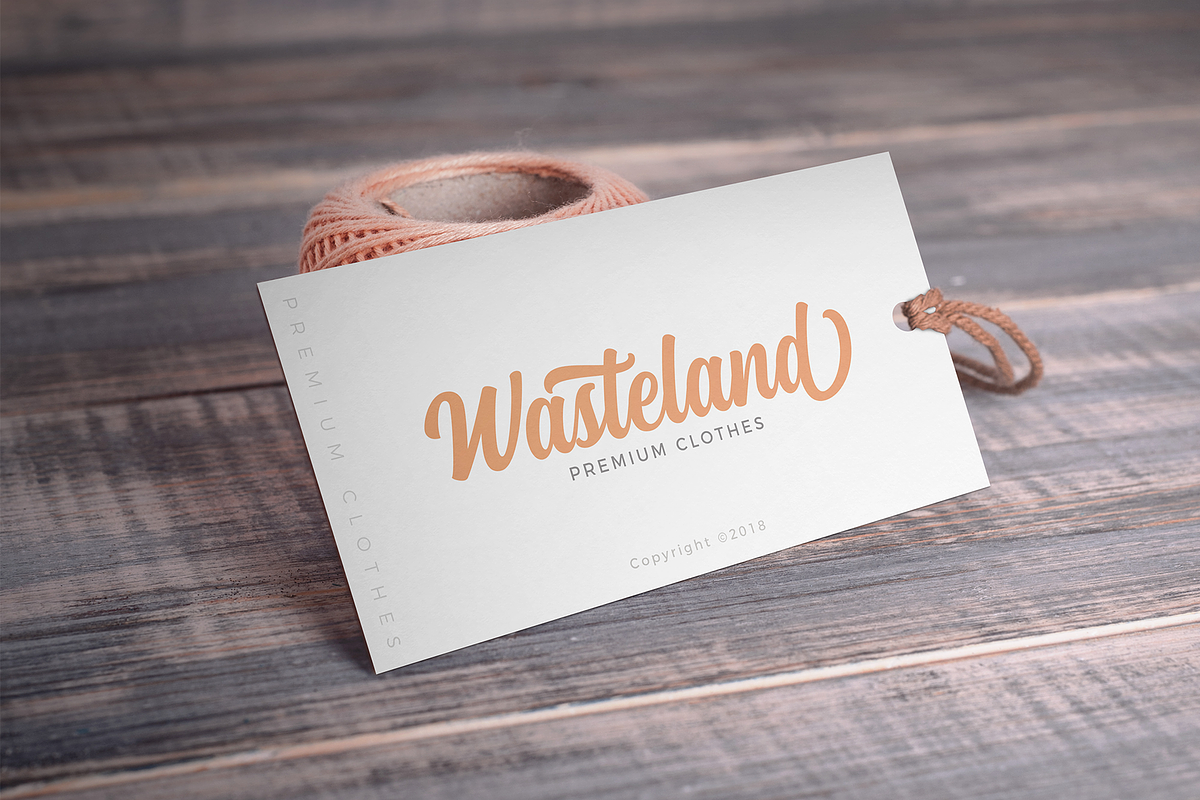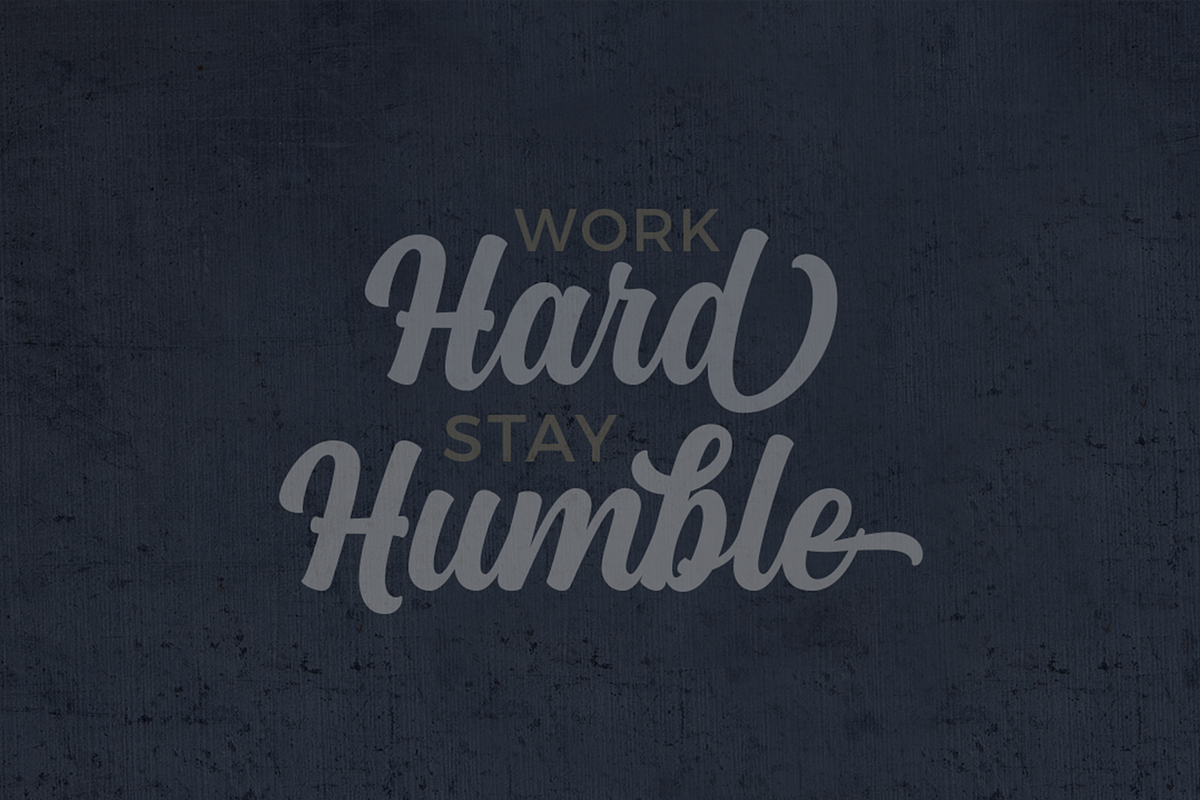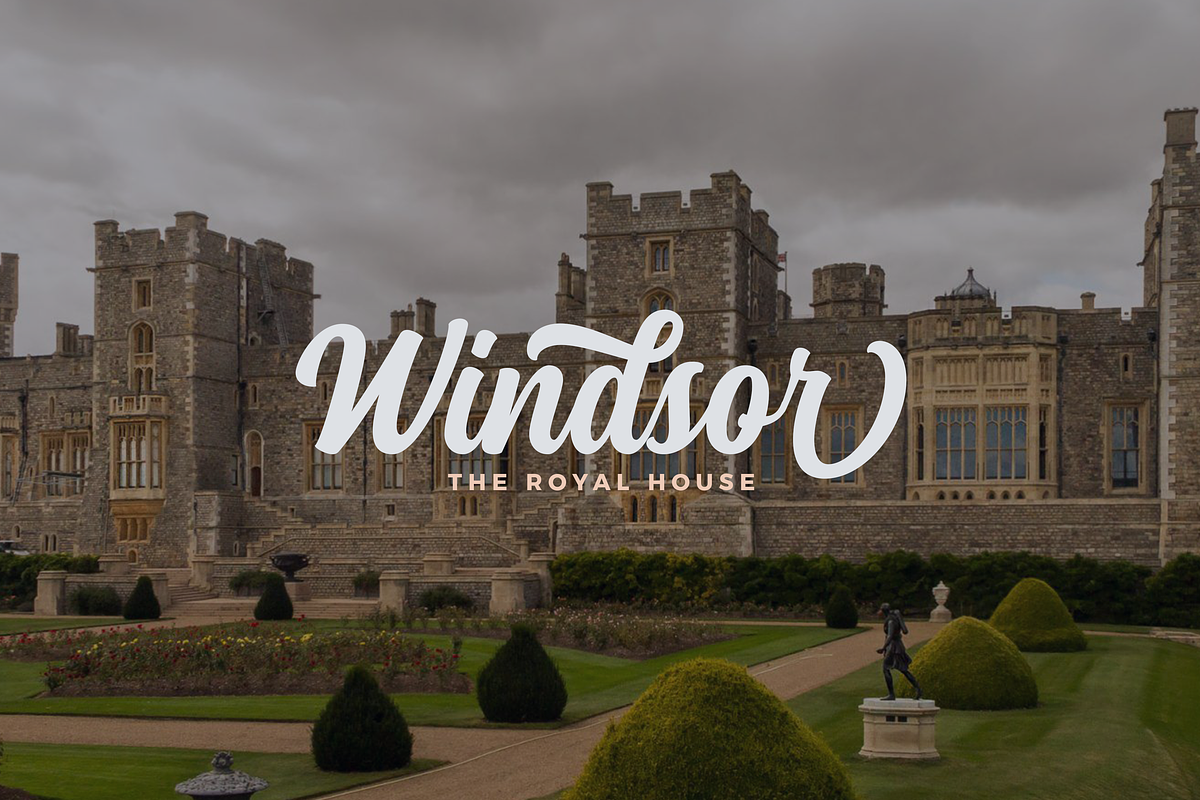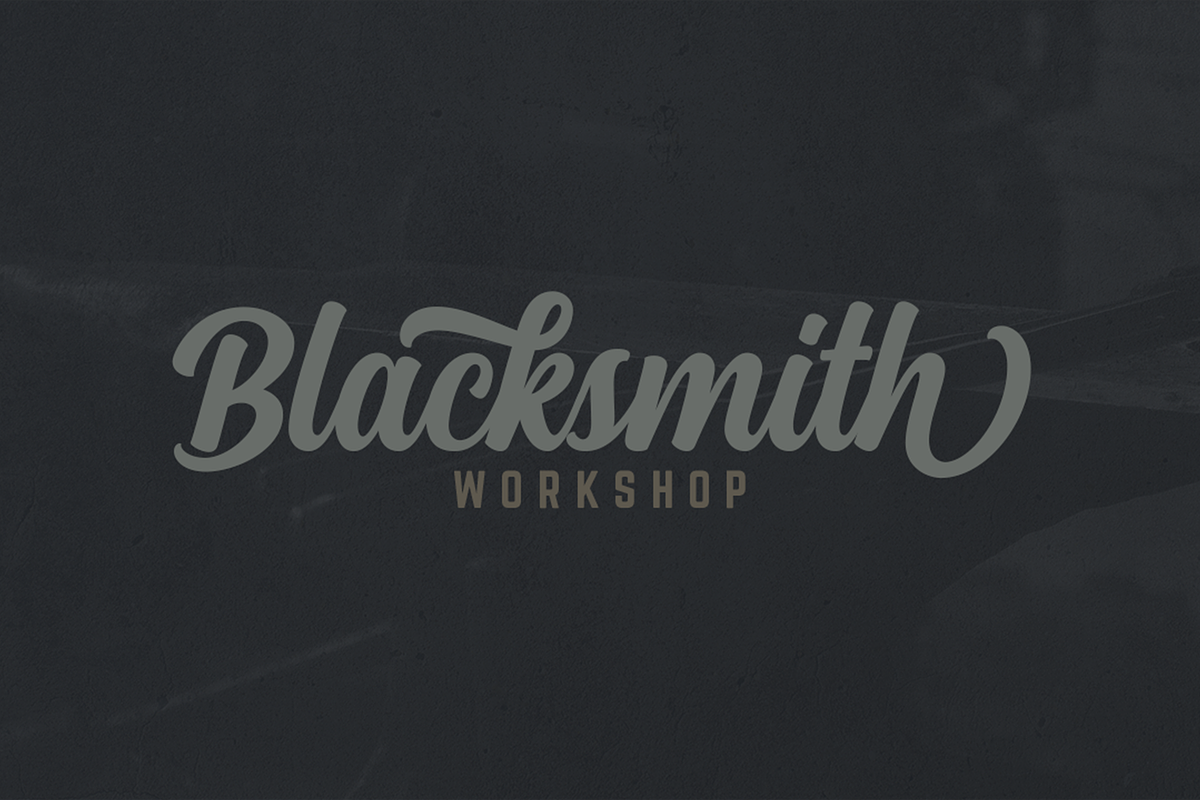
Medallion Script
Medallion script is a new and fresh font script that comes with a vintage and neat style. so this font can be used easily, even in mix and match with other fonts. so it can provide new alternatives and sensations for designers or craftsmen, in working on various projects.
This font is perfect for all your project like the wedding invitation, greeting cards, branding materials, business cards, quotes, posters, insignia, badge, greeting cards, vintage logo, or you can use this font for various logo project (logotype) and more! The following characters are ideal to make an attractive message, mix and match Blacksmith with a bunch of alternative characters to fit your project